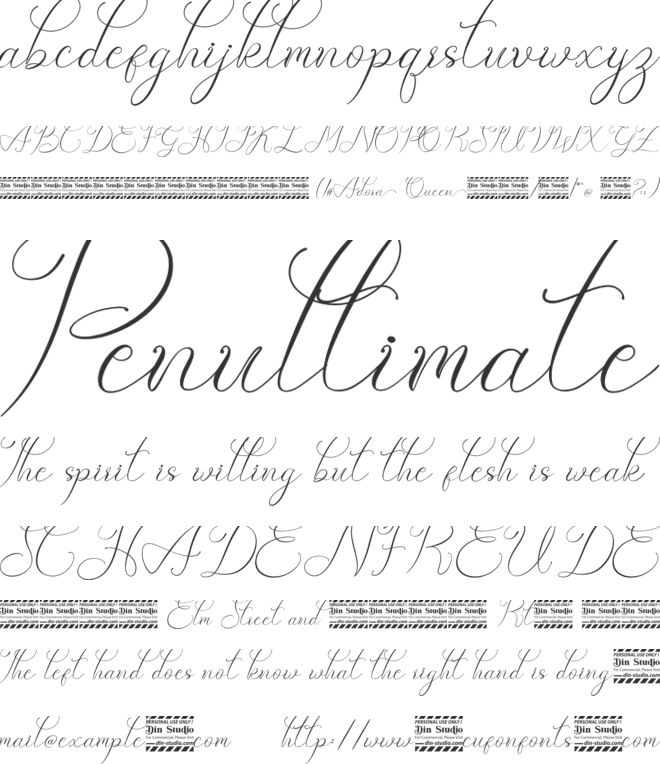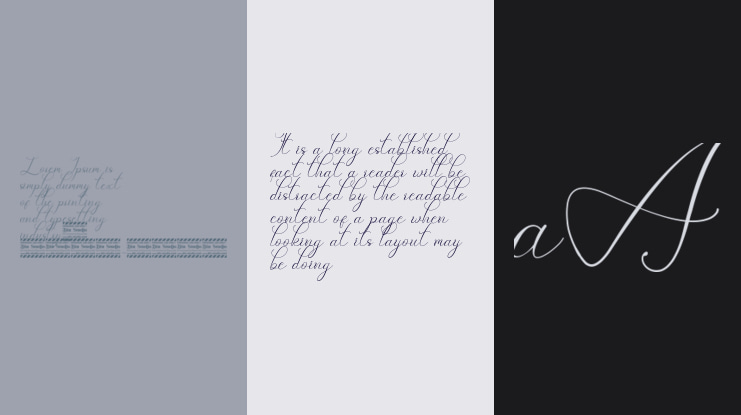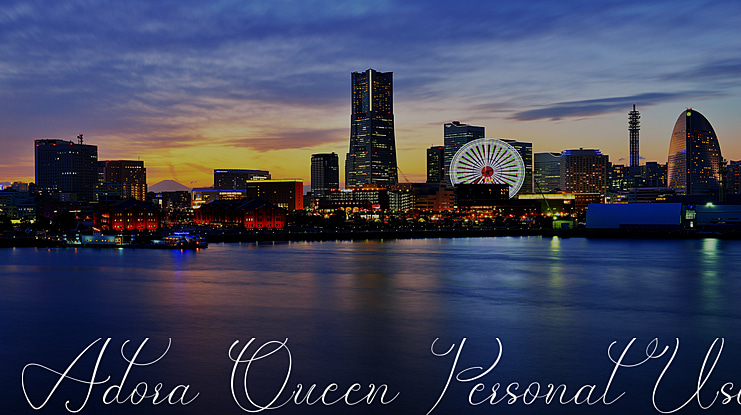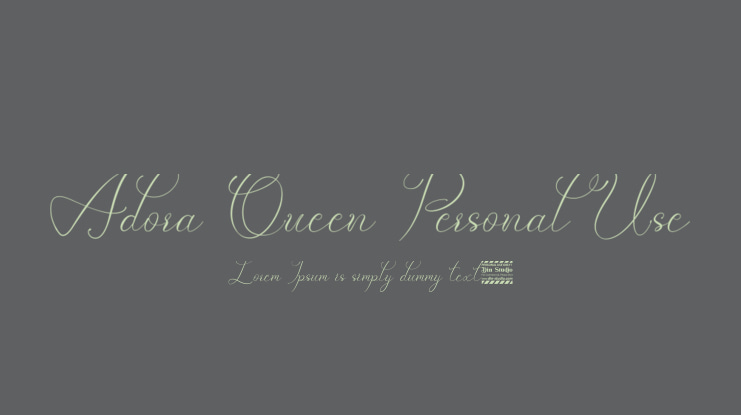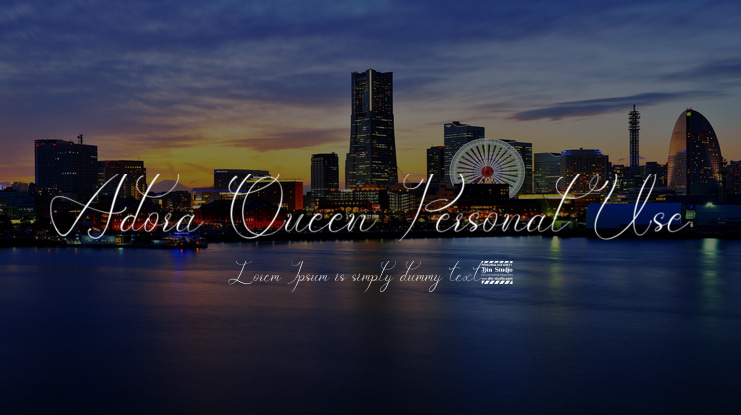
Adora Queen an elegant modern calligraphy font. This font presents an elegant style that best for a
wedding, any card design, branding projects, product packaging, quotes, logos, book covers, and many
other projects.